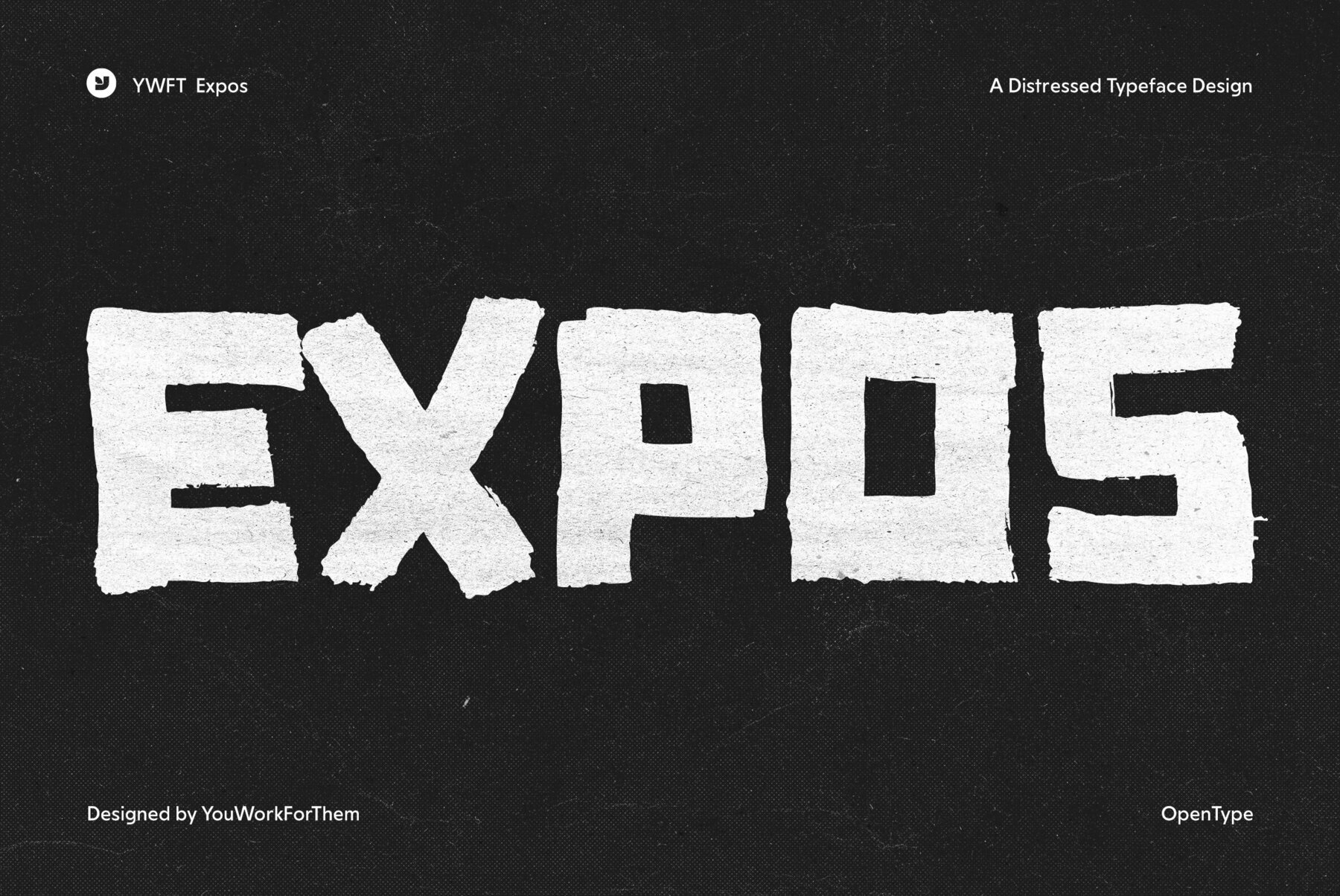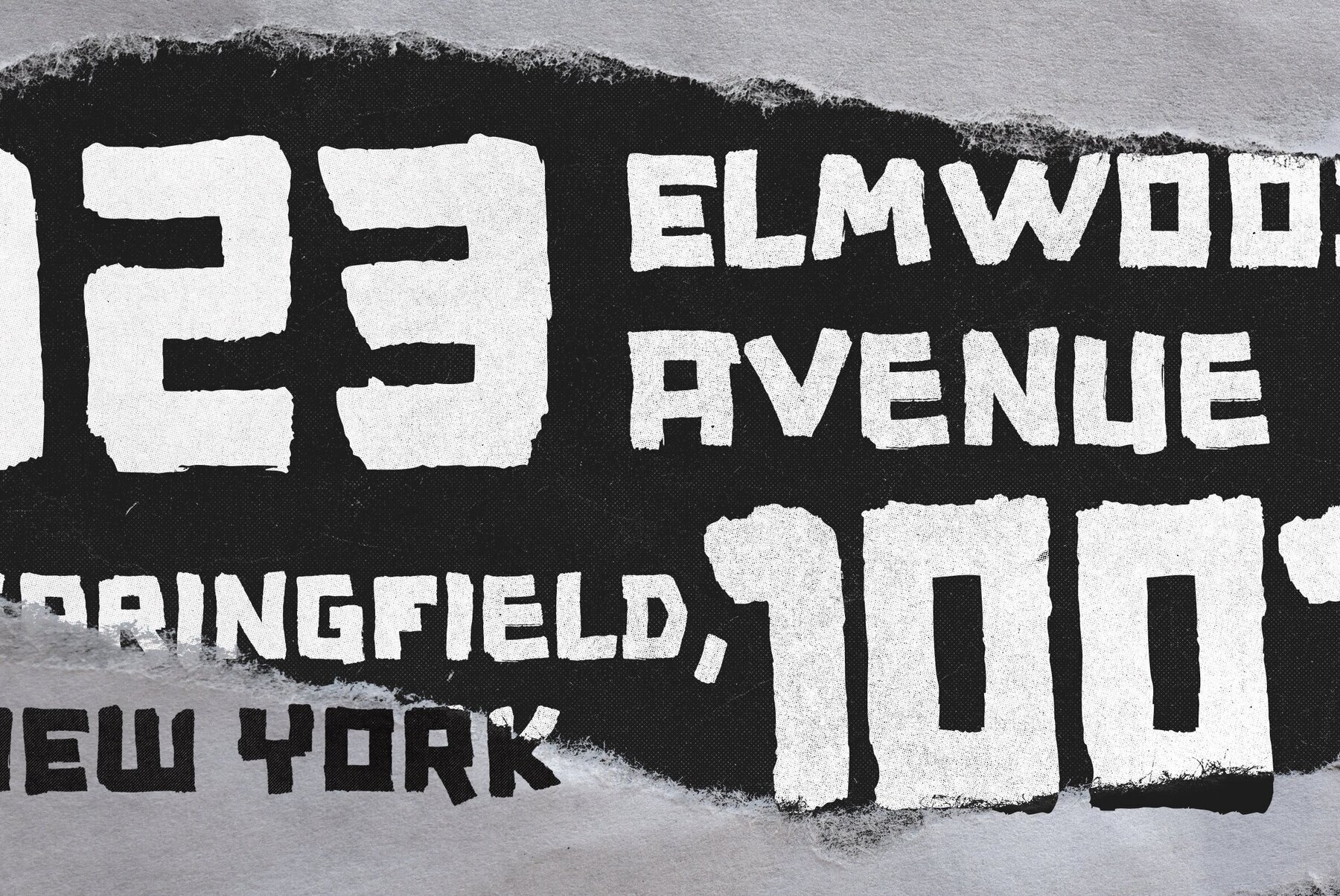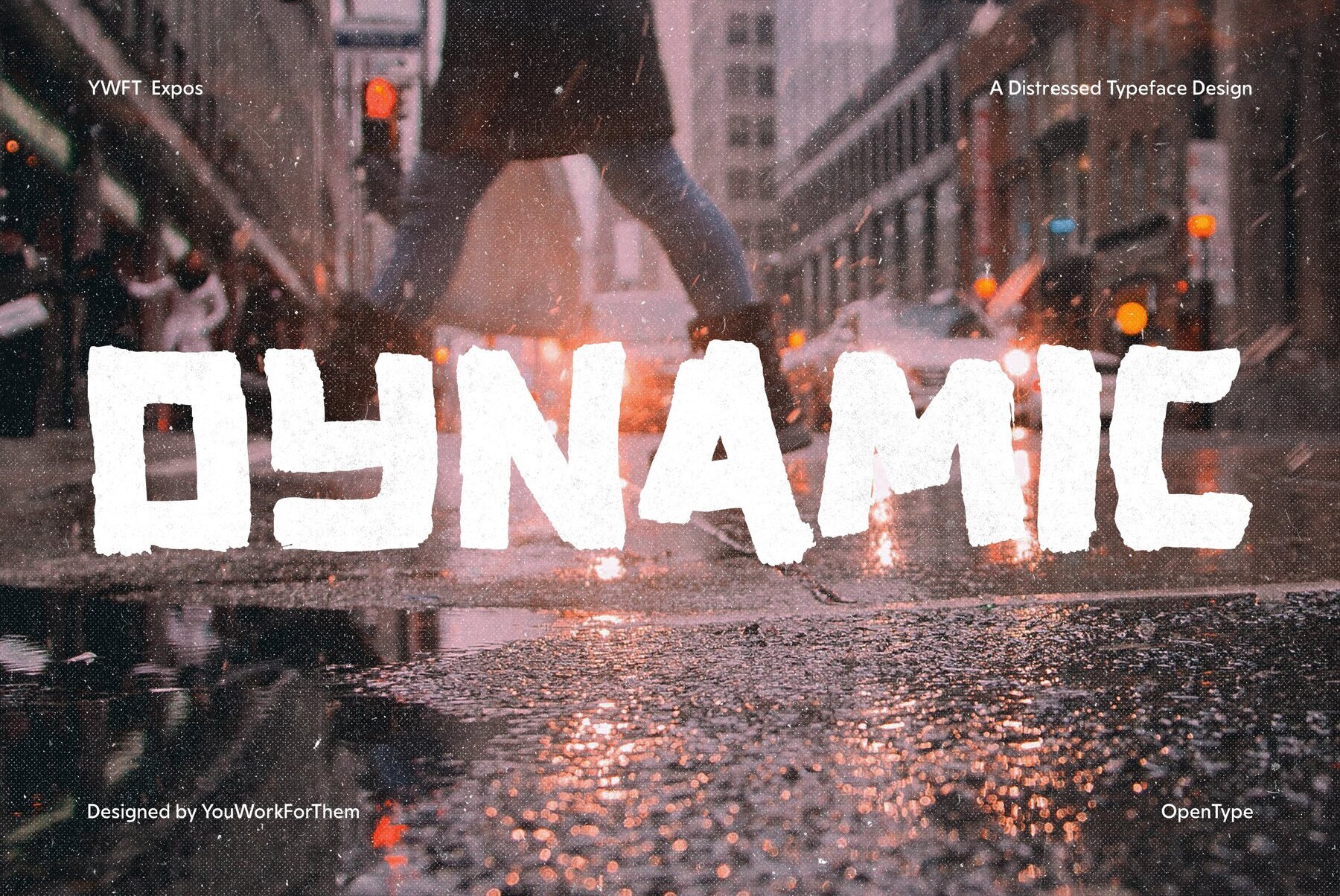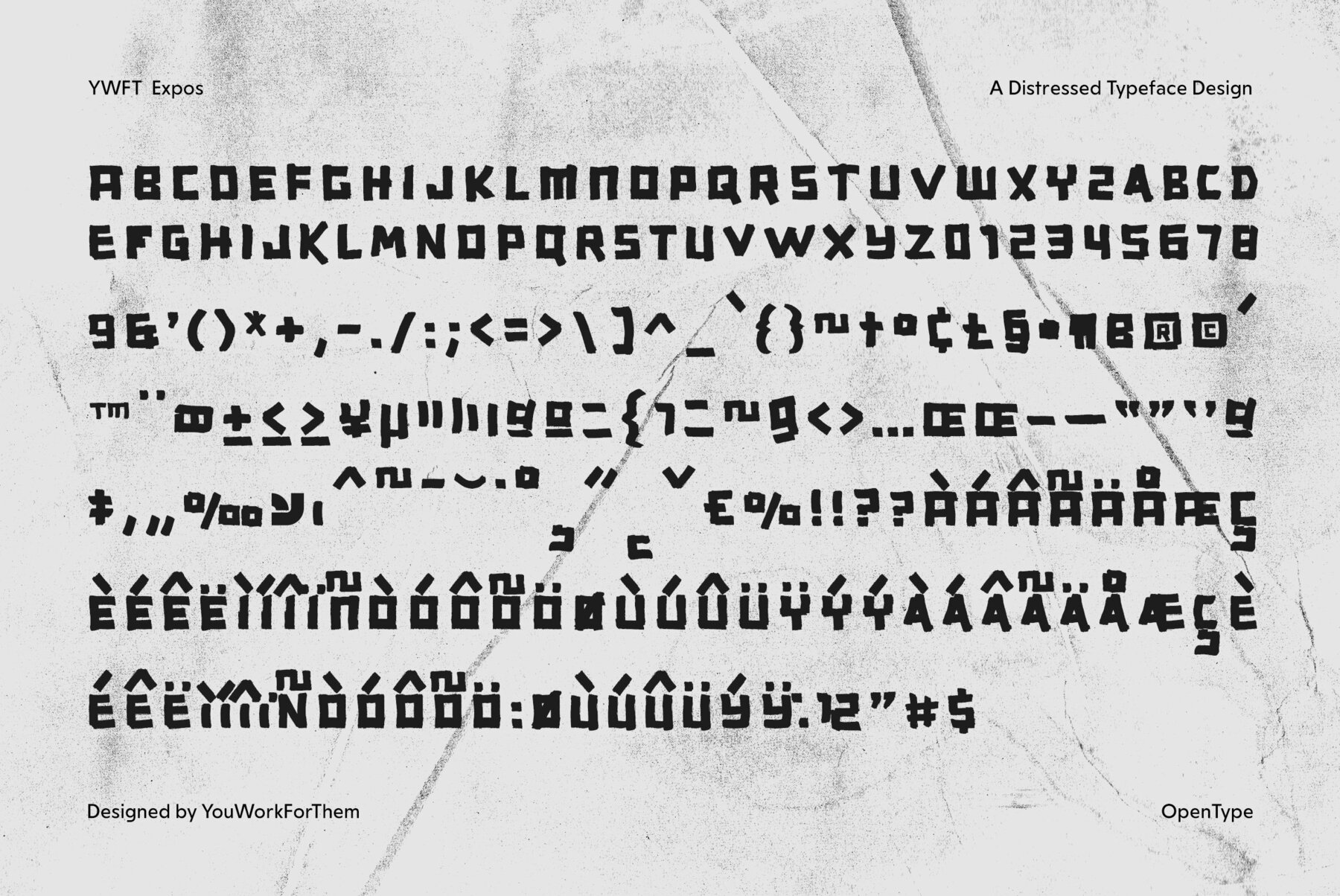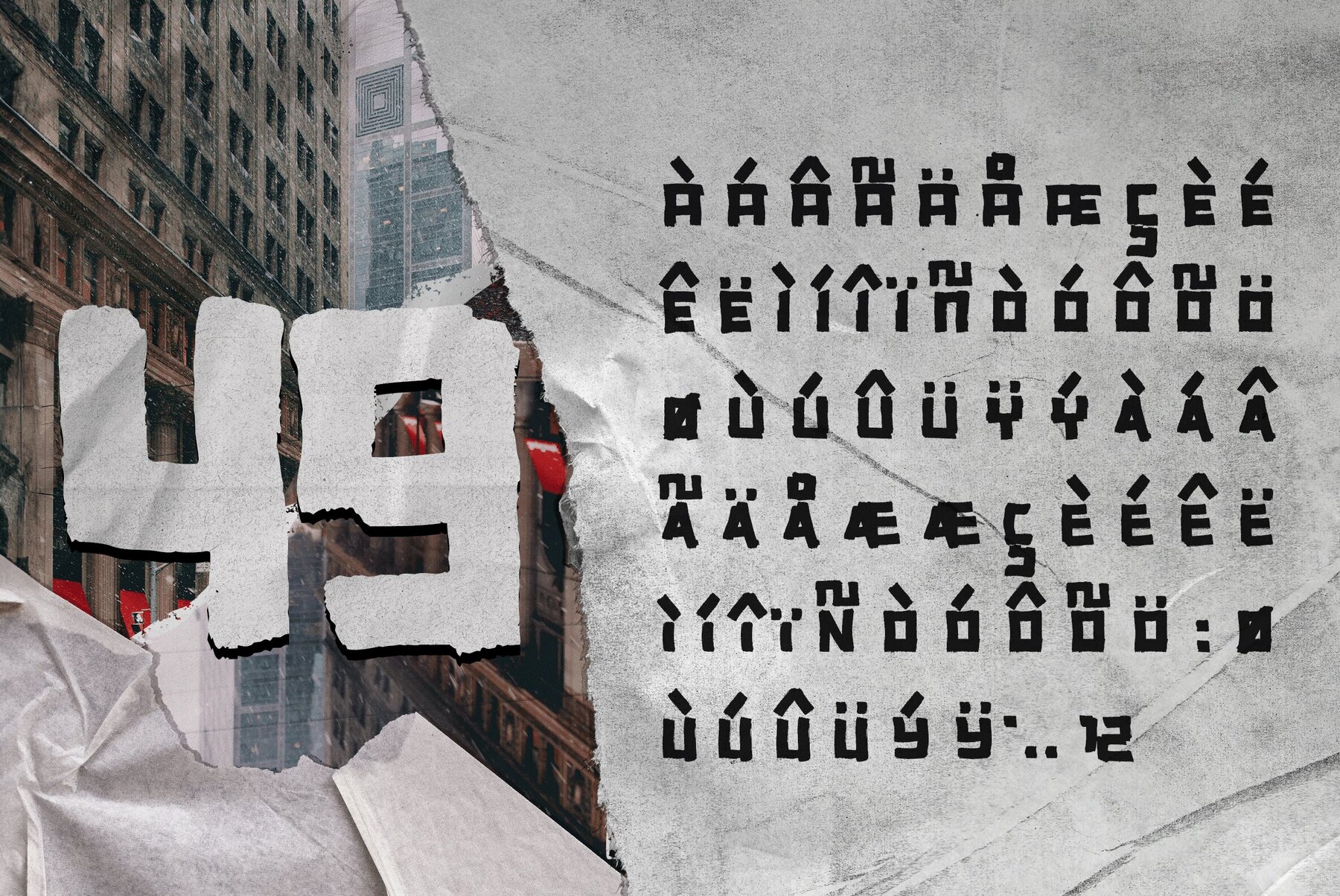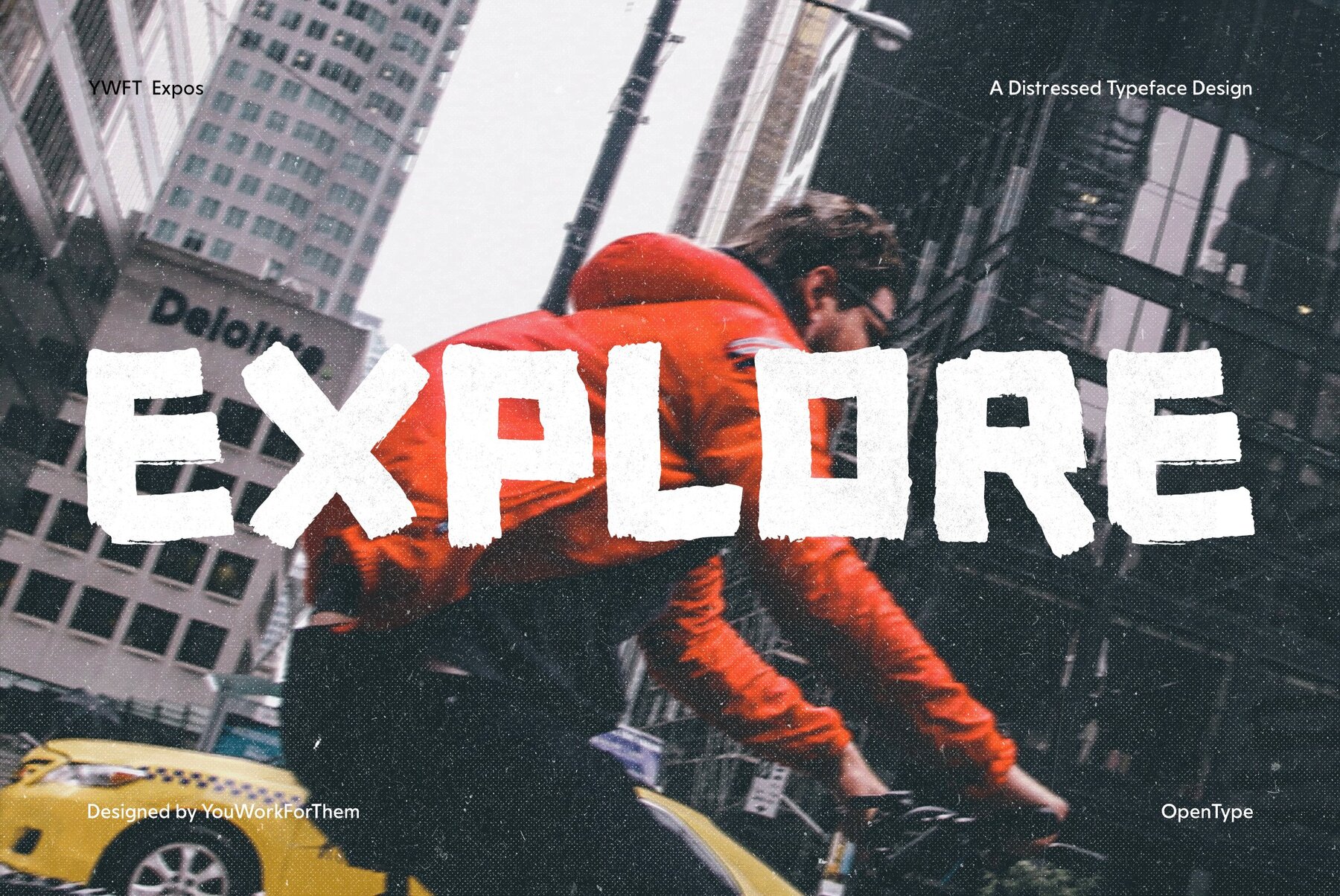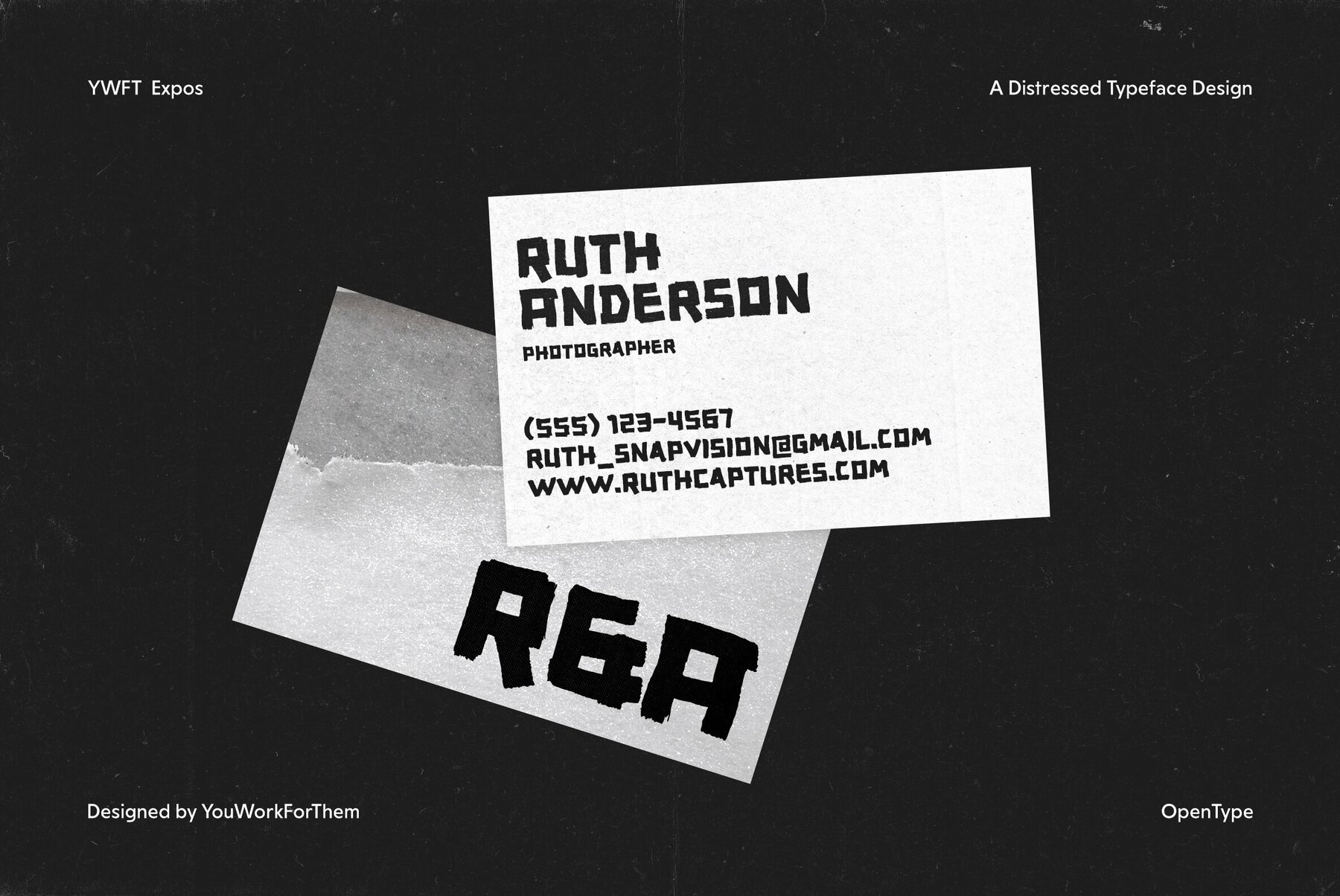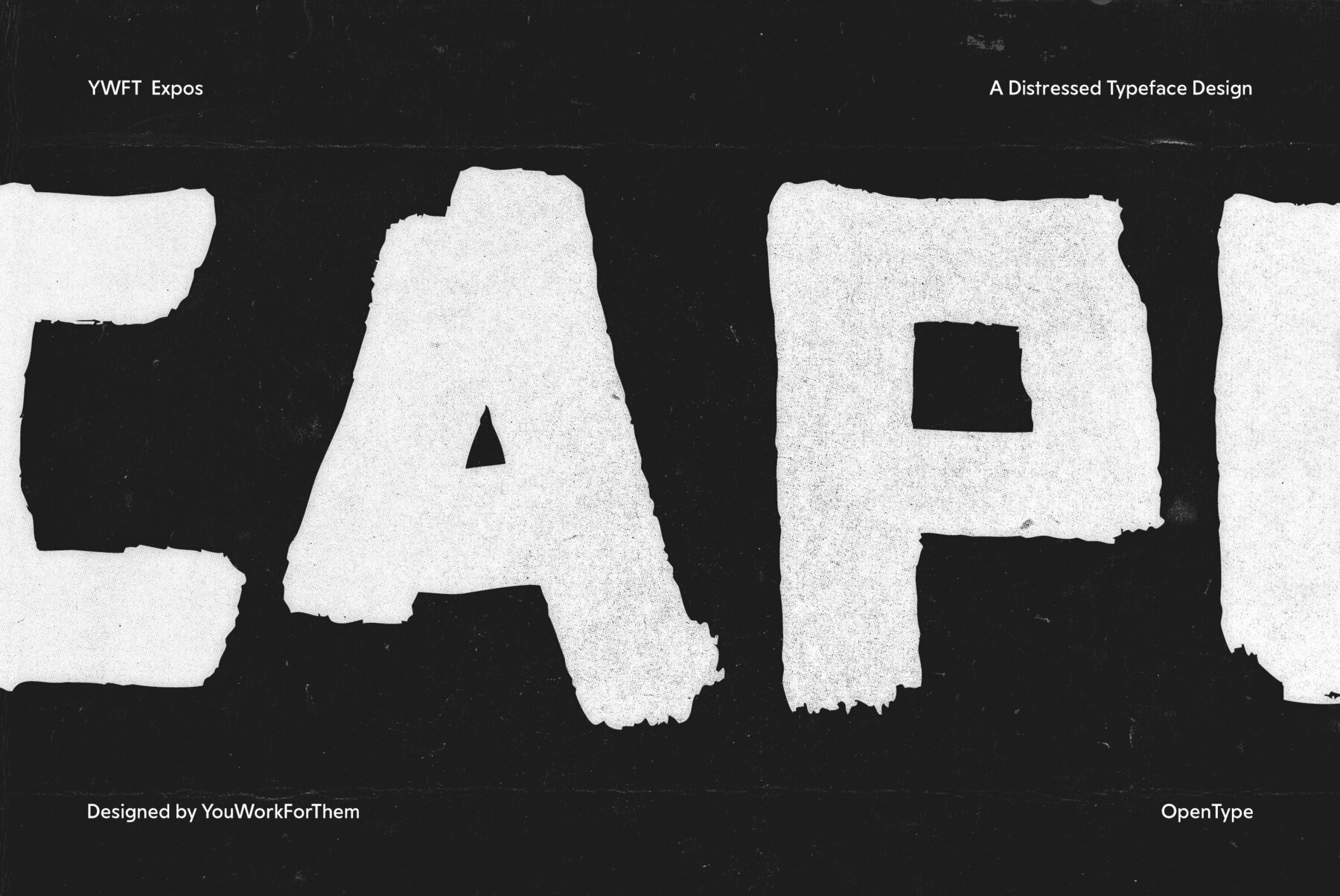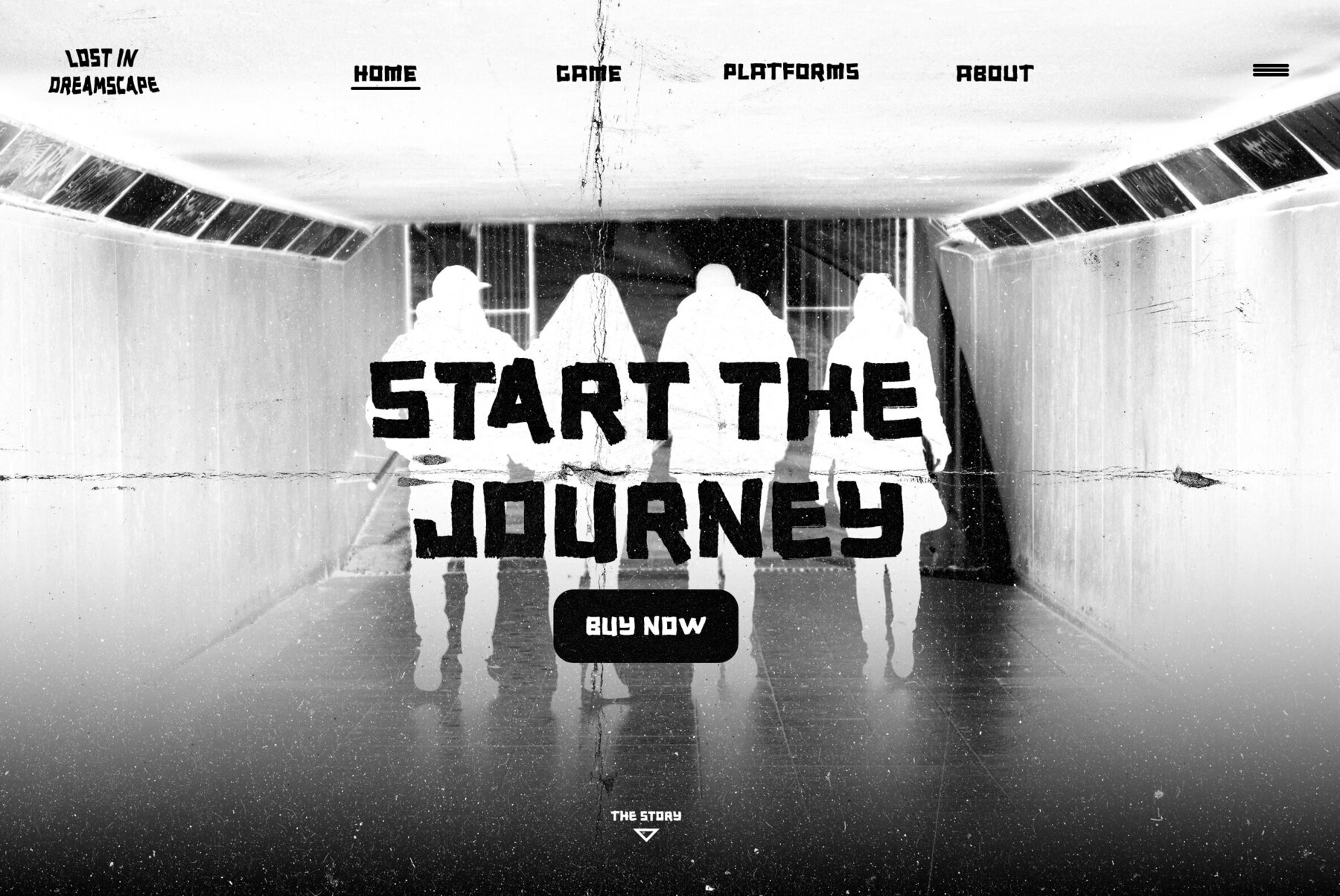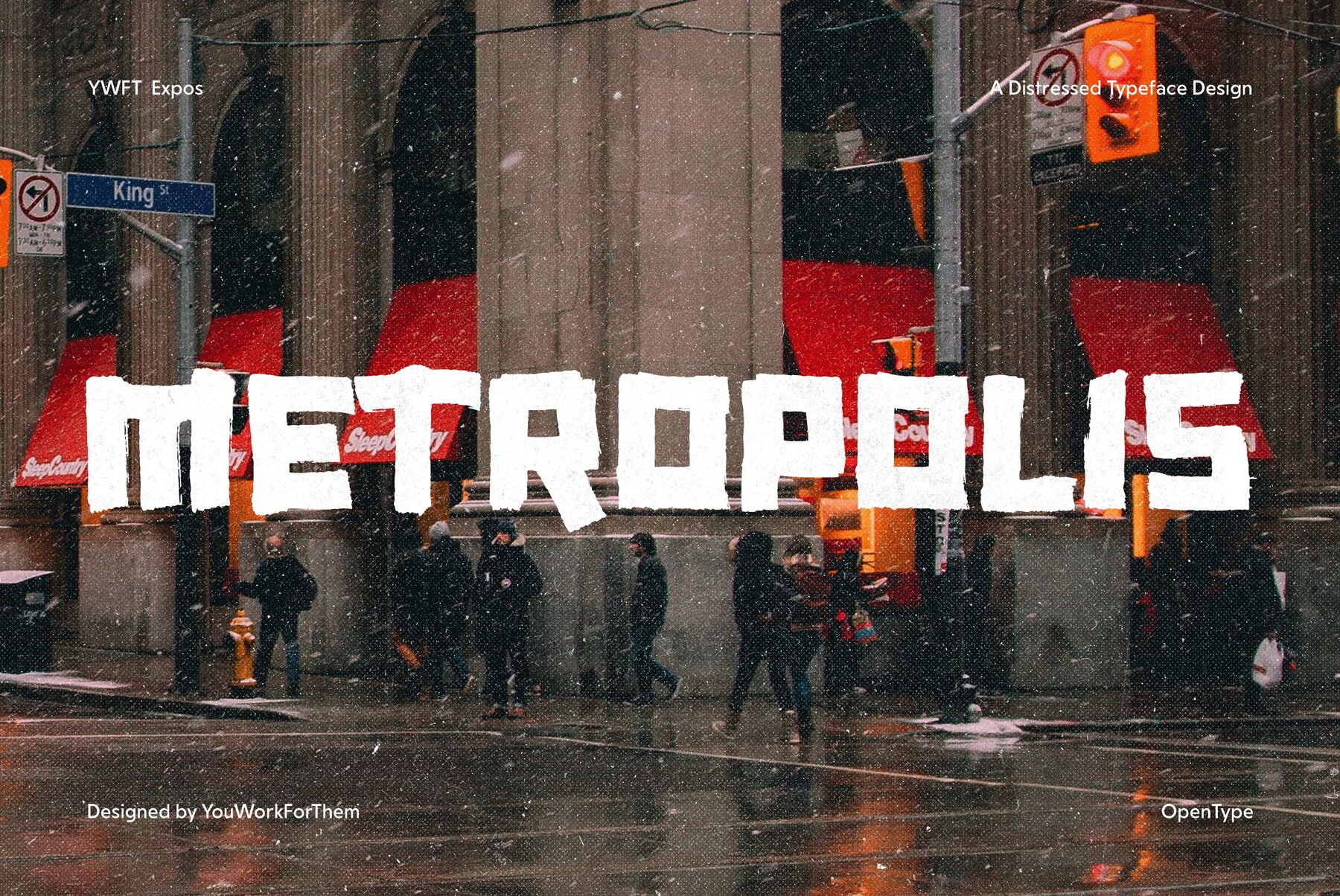
YWFT Expos Font
YWFT Expos
YWFT Expos offers a unique blend of rugged, graffiti-inspired typography with a distinctive street aesthetic. Designed with an all-uppercase character set, it provides both uppercase and lowercase styles that serve as alternates, enhancing design versatility. Originally created in 2004, YWFT Expos was updated to an opentype format in 2010, ensuring compatibility with modern design software and enhancing its utility in digital projects. This font stands out not only for its bold aesthetic but also for its adaptability in various design contexts. YWFT Expos is an ideal choice when you want to infuse your project with a bold, cultural statement that bridges the gap between urban and traditional design elements.YWFT Expos: Rugged Graffiti Style
Design Characteristics
Historical Context and Development